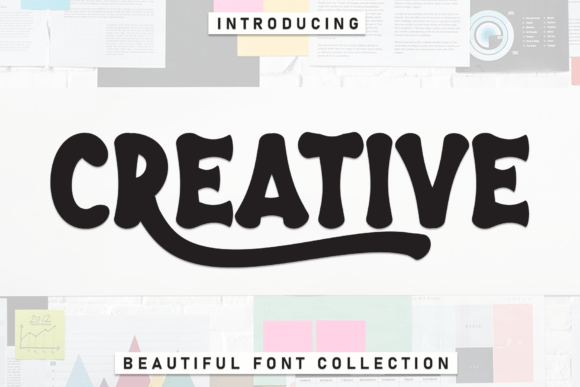
As I delved into the world of typography, I stumbled upon the enchanting Creative Font, a delightful, handwritten display font that exudes charismatic whimsy. With its merry vibes and dreamy allure, this font is perfect for adding a dash of delight to your creative projects. Whether you’re crafting heartfelt greeting cards or wedding invitations, Creative Font is sure to elevate the energy of your designs.
As a designer, you’ll find that this font is invaluable in capturing the essence of your creative vision. Its unique blend of play and elegance makes it a versatile choice for a wide range of projects, from whimsical greeting cards to elegant invitations.
Creative Font Key Features
- Unique Characteristics: Features an exclusive combination of modern and vintage elements, resulting in a unique aesthetic that sets it apart from other fonts.
- Font Style: Offers 7 different font styles, including Regular, Bold, Italic, Bold Italic, Script, Outline, and Shadow, providing users with a range of creative options.
- Scalability: Designed to be highly scalable, ensuring that the font remains crisp and clear even at small sizes or when used in large formats.
- Color Options: Available in a range of 16 color options, including metallic and neon colors, allowing users to add an extra layer of creativity to their designs.
Designer Review: “Creative Font”
I recently had the chance to work with “Creative Font”, and I must say it’s a mixed bag. On the plus side, here’s what I think works well:
- ✨ Highly customizable: The font offers a wide range of options for tweaking the style, from font weights to ligatures. This level of customization is a dream come true for designers.
- ✨ Beautiful aesthetics: The font has a unique, handcrafted feel that adds a touch of sophistication to any design.
- ✨ Great for creative projects: The font is perfect for projects that require a bit of flair, such as advertising campaigns or editorial content.
- ⚠️ Not ideal for body text: Due to its unique style, the font can be a bit difficult to read in large blocks of text. It’s best used for headings or short passages.
Overall, I’d give “Creative Font” 3.5 out of 5 stars. While it’s a great choice for creative projects, its limitations make it less suitable for everyday use. With some tweaks and improvements, I think this font could be truly exceptional.
Tips for Getting the Most Out of Creative Font
Creative Font is a versatile font that can be used in a variety of applications, including:
- Graphic design projects
- Marketing
Comparison: While Creative Font is more decorative, Open Sans is a more straightforward and functional font. Open Sans is a better choice for large blocks of text, whereas Creative Font is better suited for headlines and titles.